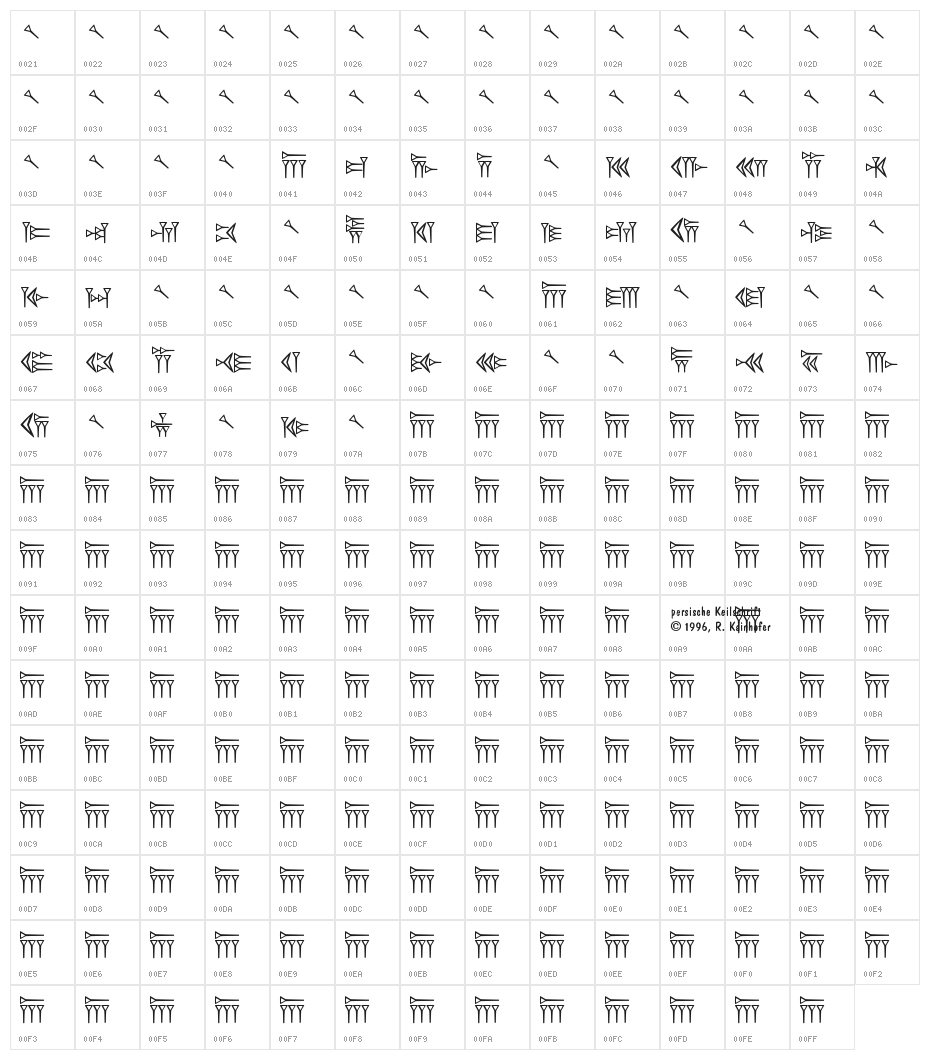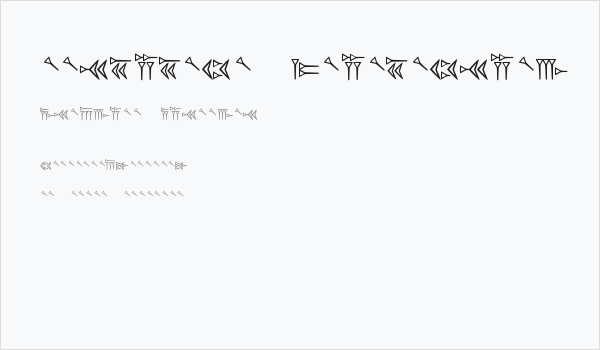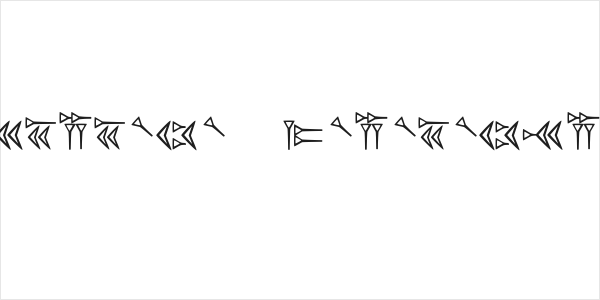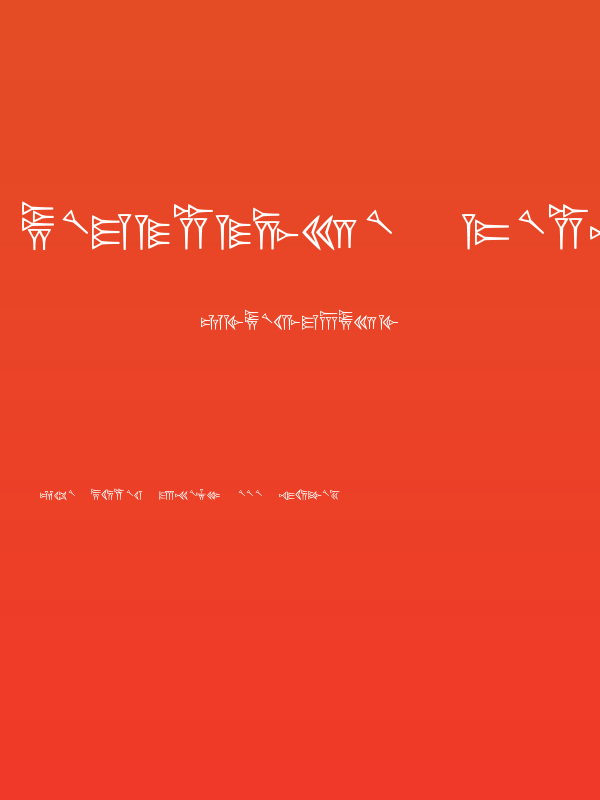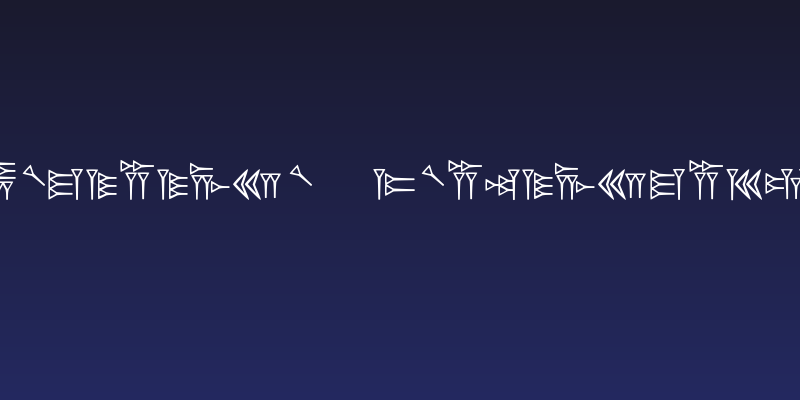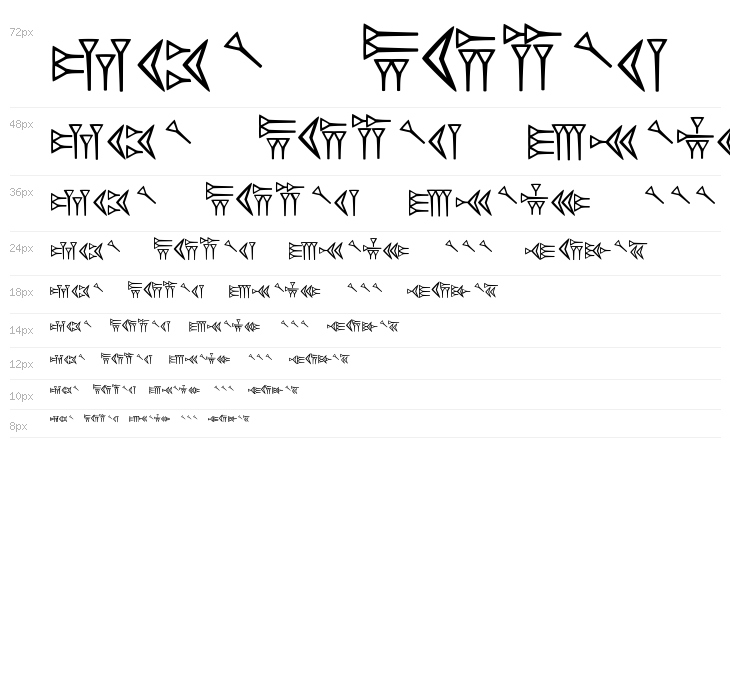
persische Keilschrift Font
persische Keilschrift Description
This design features repeated geometric symbols resembling ancient cuneiform script, with each character composed of straight lines and wedge shapes. The symbols are monolinear, with consistent stroke thickness and no variation in weight or contrast. The overall appearance is highly stylized and decorative, evoking historical or archaeological themes.
| Overall Style | Decorative, Historical |
| Use Case | Display, Themed graphics, Logos |
| Proposed Projects | Historical displays, educational materials, themed posters, museum graphics, or fantasy world-building. |